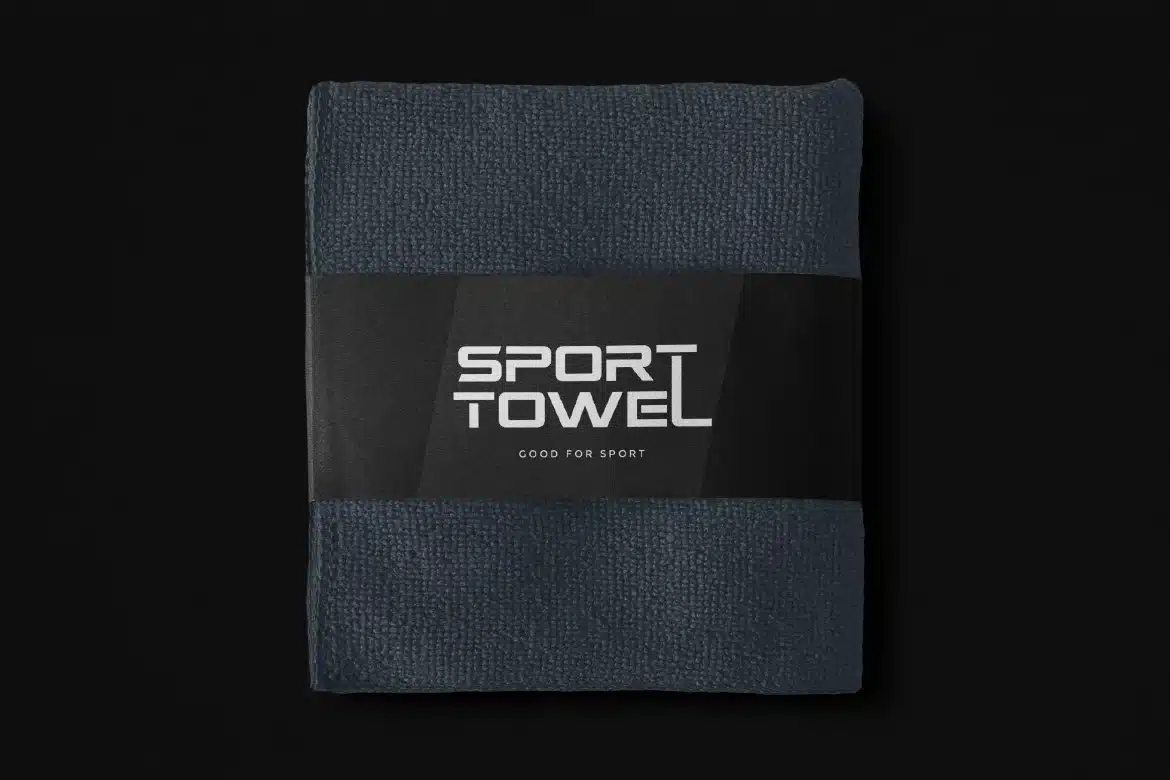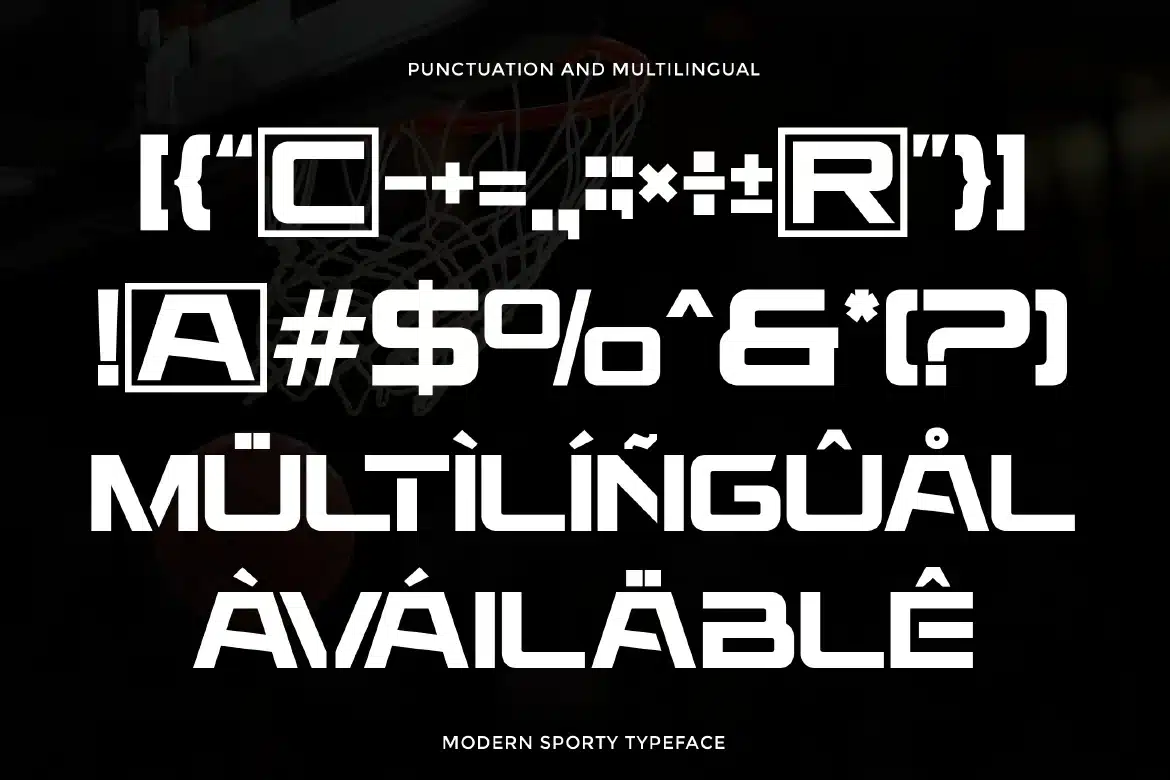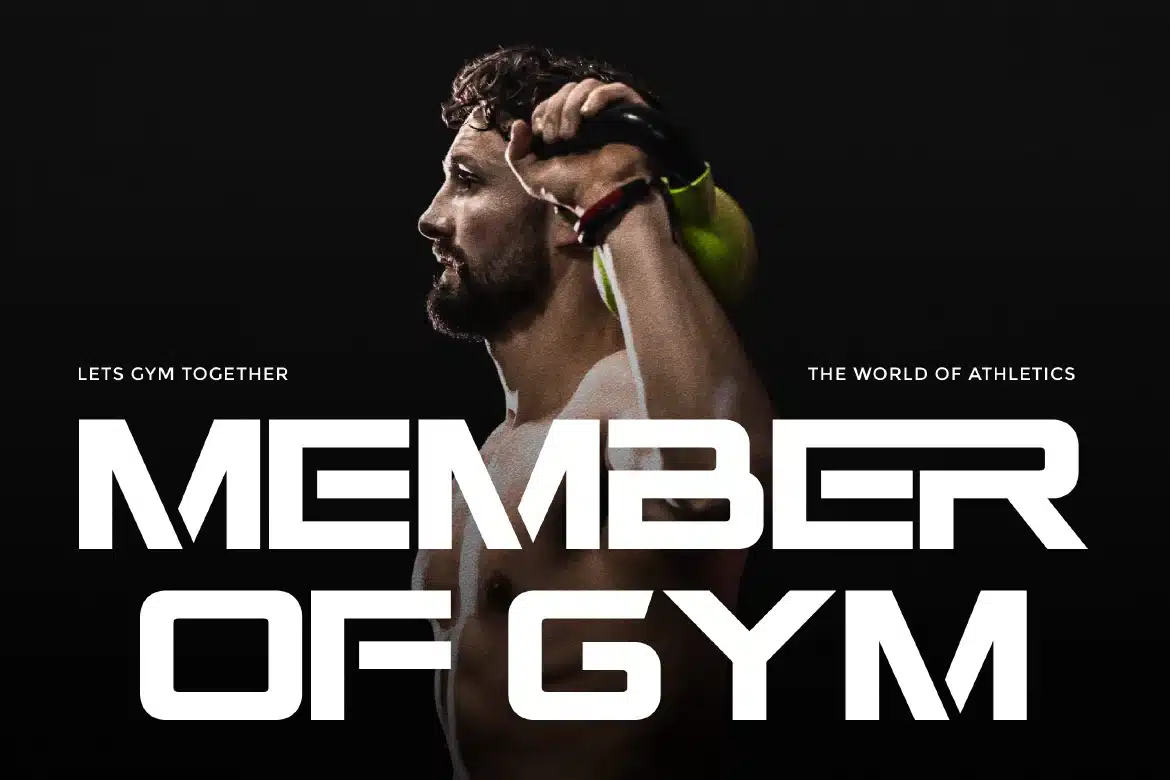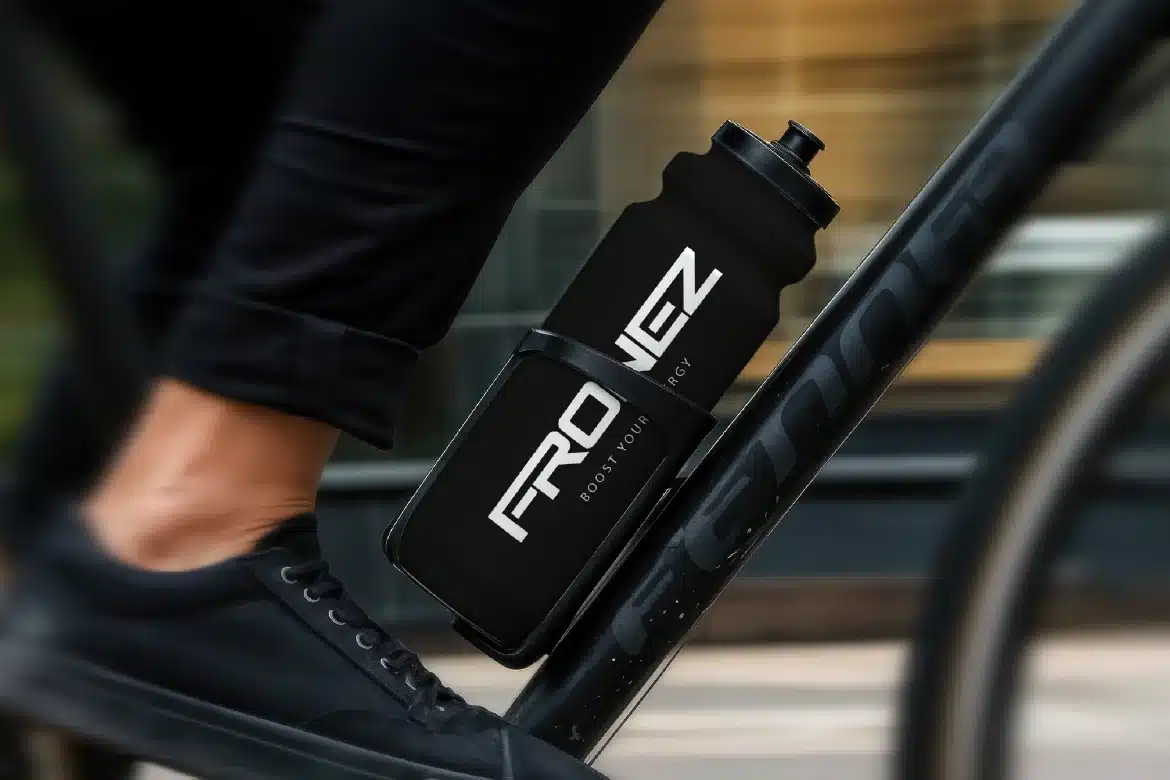
Modern Sporty Display Font – Rebost
Rebost is a modern sporty typeface designed to deliver energy, precision, and a bold athletic character. With its sharp angles, clean structure, and dynamic proportions, Rebost creates a strong visual presence that feels fast, confident, and performance-driven. Built for impact, this typeface excels in display settings where clarity and strength are essential. Its modern sporty style balances aggression with readability, allowing your designs to stand out while remaining clean and professional.
Who Should Use Rebost?
Rebost is ideal for designers, brands, and creatives looking for a modern typeface with an athletic edge. It’s especially suited for projects that require bold, dynamic, and energetic typography.
Sports branding and team identity
Esports and gaming visuals
Fitness and active lifestyle design
Posters and promotional materials
Advertising and campaigns
Packaging and merchandise
Social media graphics
High-impact headlines